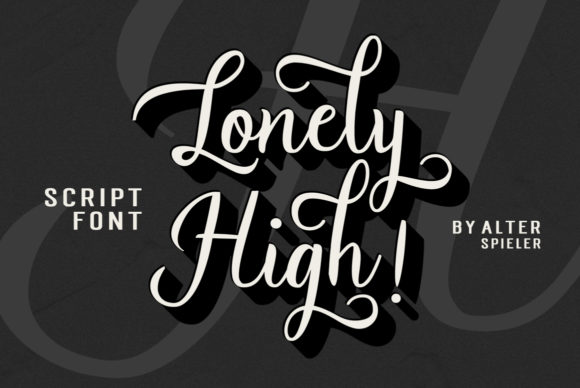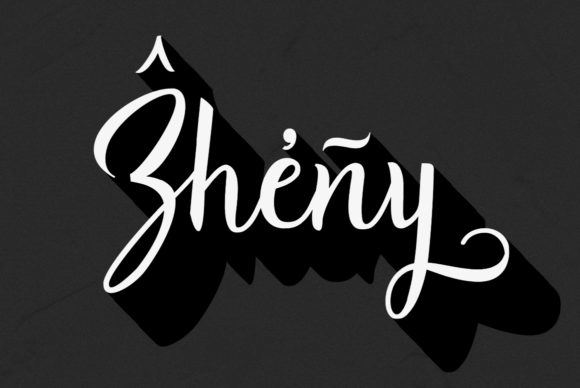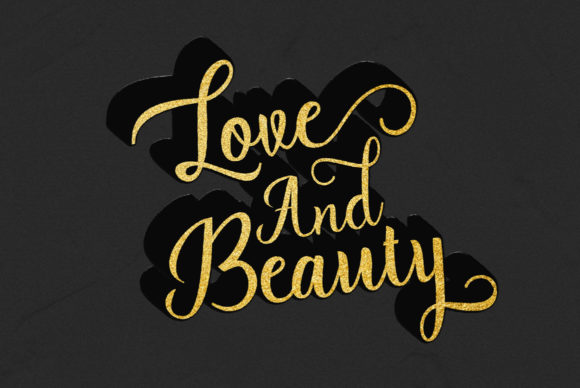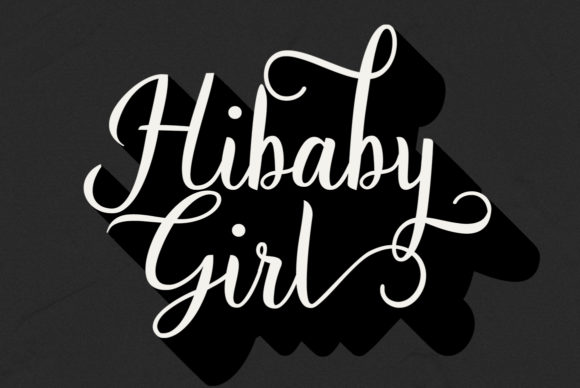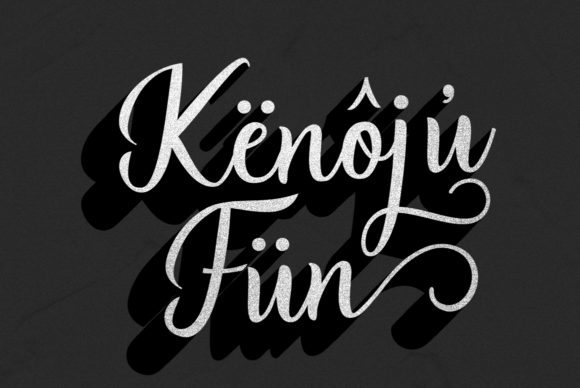
Lonely High Font
About Lonely High Font
Lonely High is a beautiful and elegant handwritten font, with a unique feel. Fall in love with this retro-inspired font!